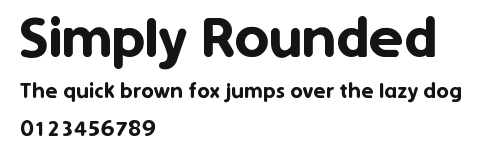
• Font Name: Simply Rounded
• Full Font Name: Simply Rounded
• Designer: © Galdino Otten. 2013. All Rights Reserved
• Manufacturer: Galdino Otten
About Simply Rounded.ttf
Simply Rounded.ttf is a modern, elegant sans-serif font designed for ultimate readability and visual harmony. Perfect for branding, headlines, web design, and print materials.